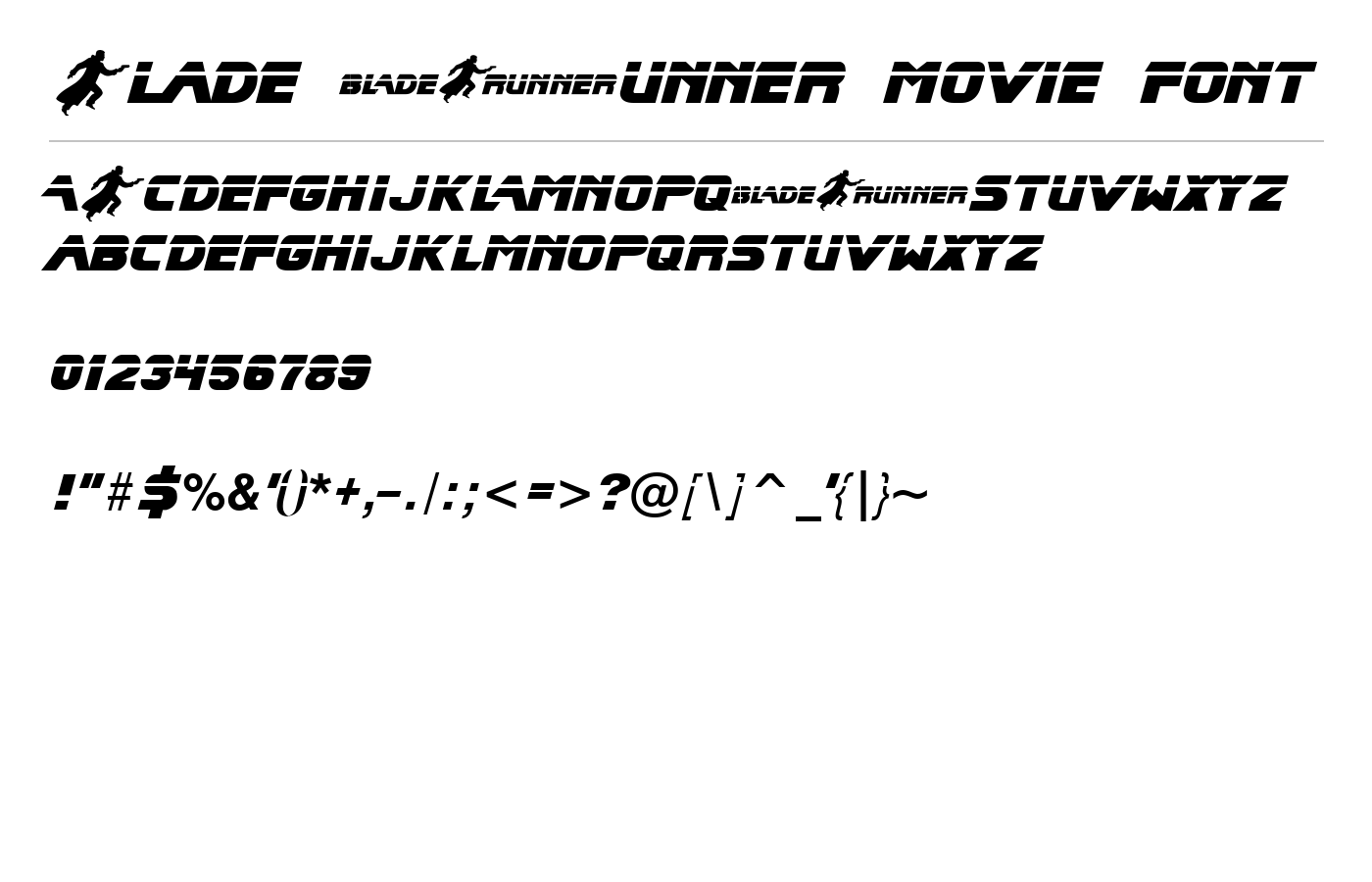
The Blade Runner Movie Font is a bold, condensed sans serif typeface with a futuristic and dynamic style, characterized by sharp angles and slanted letterforms that give a strong sense of motion and speed. Its high contrast and sleek geometric shapes make it ideal for sci-fi-themed branding, headlines, and posters, conveying a high-tech, edgy, and modern personality. This font works best in display contexts where impact and visual drama are key, perfectly suited for entertainment, tech, and fashion industries looking to evoke a cutting-edge, cinematic vibe.
Blade Runner Movie Font
About Blade Runner Movie Font